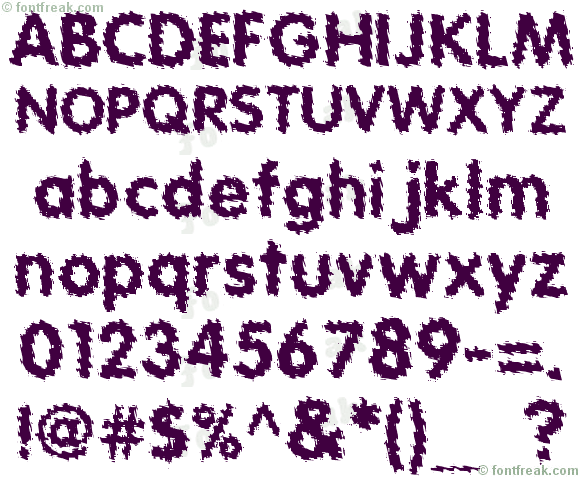
Tear
About Tear
Tear by Gemfonts is a unique display font that embodies a playful and artistic flair. This testware font features a distinct design characterized by its irregular, jagged edges, giving it a hand-drawn, organic feel. The stroke weight varies throughout the characters, creating a sense of movement and dynamism, while the spacing between letters is thoughtfully balanced, allowing for easy readability despite its unconventional style. The decorative elements contribute to its whimsical appearance, making it a standout choice for creative projects.
The Tear font is particularly well-suited for a variety of applications. It shines in settings such as wedding invitations, where its artistic flair can add a personal touch to the special day. Additionally, it works wonderfully for movie posters, capturing attention with its eye-catching design and unique character. Restaurant menus can also benefit from the Tear font, enhancing the ambiance of a casual dining experience with its playful aesthetic. Content creators looking to make their social media graphics pop will find this font to be an excellent choice, as it adds an element of fun and creativity to any visual project.
Targeted at graphic designers, small business owners, and content creators, the Tear font offers a fresh perspective that can elevate any design. Its distinct style makes it a versatile option for those looking to inject personality into their work.
What sets the Tear font apart is its ability to combine artistry with functionality. It invites viewers to engage with the content, making it memorable and visually appealing. For those interested in exploring this unique typeface, the Tear font free download provides an excellent opportunity to incorporate this striking design into various projects, ensuring that your work stands out in a crowded digital landscape.